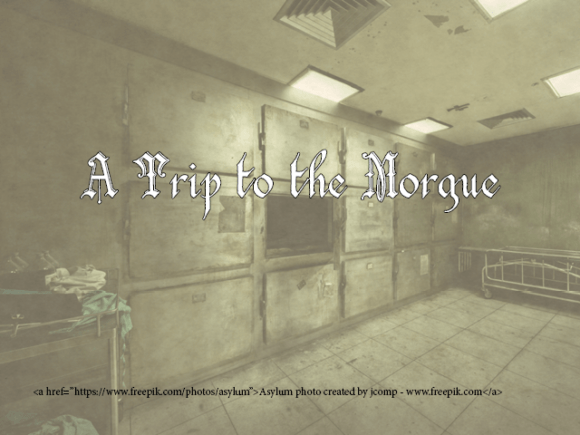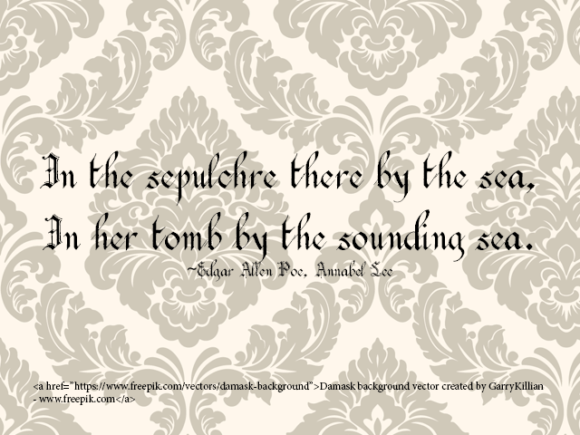
The Old-World Charm of Blackstone Hand Font
As I flipped through the pages of a vintage typography book, I stumbled upon a beautiful, hand-drawn letter set that instantly captured my attention. The intricate details and bold lines transported me to a world of medieval grandeur, where craftsmanship and artistry were at the heart of every design. It was in that moment that I knew I had to recreate the essence of that letter set in a modern font.
Introducing Blackstone Hand Font, a gothic, medieval-style black letter font that embodies the same old-world charm and sophistication as the original letter set. Designed to evoke the feeling of a monogrammed crest or a handwritten family crest, this font is perfect for adding a touch of elegance and history to your designs. Whether you’re a graphic designer, a typographer, or simply a creative enthusiast, Blackstone Hand Font is a valuable addition to your toolkit, offering endless possibilities for creating unique and captivating visual identities.
Blackstone Hand Font Key Features
- Font Family: Blackstone Hand, a unique and elegant script font
- Size: The font family includes multiple weights, ranging from Thin to Extra Bold, with 8 styles in total
- Resolution: Designed for high-resolution displays, making it perfect for digital use
- Unique Characteristics: Features a distinctive, handwritten feel with subtle flair and elegance, making it suitable for invitations, signage, and branding
Blackstone Hand Font Review
I recently had the chance to work with the Blackstone Hand font, and I have to say, it’s a mixed bag.
- The unique, handwritten feel of the font is perfect for creating a personal, human touch in your designs.
- The font is highly customizable, with a wide range of weights and styles to choose from.
- It’s highly legible, even at small font sizes, making it a great choice for body text or captions.
- The font can feel a bit too ornate or cluttered at times, especially in large blocks of text.
- The uppercase letters can feel a bit inconsistent in terms of design and style.
- The font may not be the best choice for formal or professional designs, due to its more casual, handwritten feel.
Overall, I would say that the Blackstone Hand font is a solid choice for designers who want to add a personal touch to their work. While it may not be perfect for every project, it’s a great option for those looking to create a unique, handwritten feel.
To achieve the best results, use Blackstone Hand Font in combination with a clean and minimalist design aesthetic. Experiment with different font sizes, colors, and placements to create visual interest.
Use Blackstone Hand Font for titles, headings, and body text to create a cohesive and elegant look.
Common Use Cases for Blackstone Hand Font
Blackstone Hand Font is ideal for:
Business cards and letterheads
Product packaging and labels
Event branding and signage